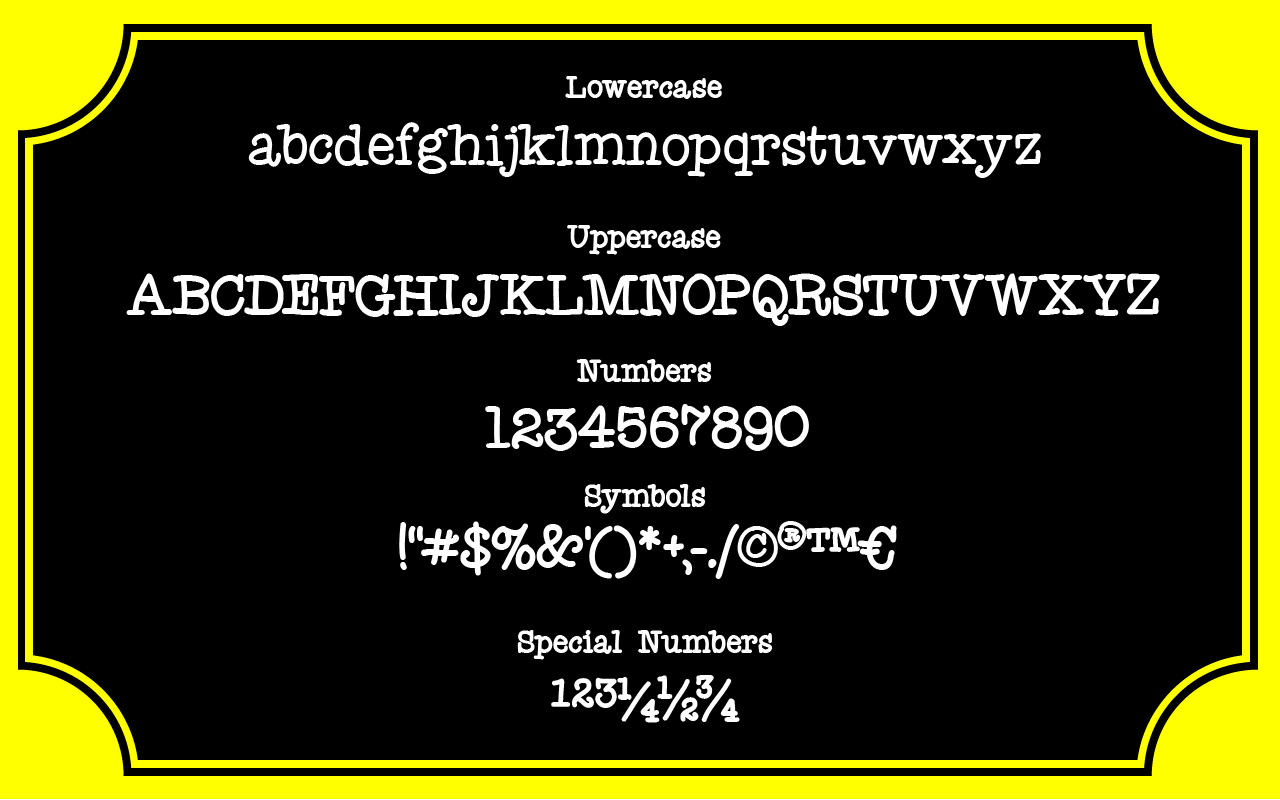
Fletcher Font
About Fletcher Font
Fletcher is a criminously interesting handwritten font family.
Inspired by the typewriter font but totally hand made, perfect to describe every little daily crime.
369 Glyphs, three weights and a very special icon set included!